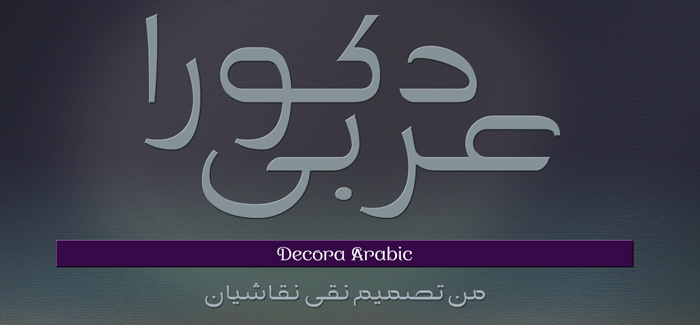
Decora Arabic font
Decora Arabic font is the latest creation of Naghi Naghashian that could be described as the arabic “brother” of the existing Decora Pro font. This hot new font is a contemporary version of Naskh developed as calligraphic style in IX Century by Ebn Mogleh. Having smooth, clear lines and premium readability Decora Arabic is excellent solution both for headlines and body text. Easy-to-use font in many applications facing a wide range of design demands.
Decora Arabic’s design fulfills the following needs:
– Explicitly crafted for use in electronic media fulfills the demands of electronic communication.
A modern interpretation of Naskh which was invented as calligraphic style by Ebn Moghleh, a Persian savant in ninth century. This script is the most widely used and its popularity has increased through the centuries. Most recently, it has served as a basis for the typefaces that are in use today.
– Suitability for multiple applications. Gives the widest potential acceptability.
– Extreme legibility not only in small sizes, but also when the type is filtered or skewed, e.g., in Photoshop or Illustrator.
Decora Arabic’s simplified forms may be artificial obliqued in InDesign or Illustrator, without any loss in quality for the effected text.
– An attractive typographic image.
Decora Arabic was developed for multiple languages and writing conventions.
Decora Arabic supports Arabic, Persian and Urdu. It also includes proportional and tabular numerals for the supported languages.
– The highest degree of calligraphic grace and the clarity of geometric typography.